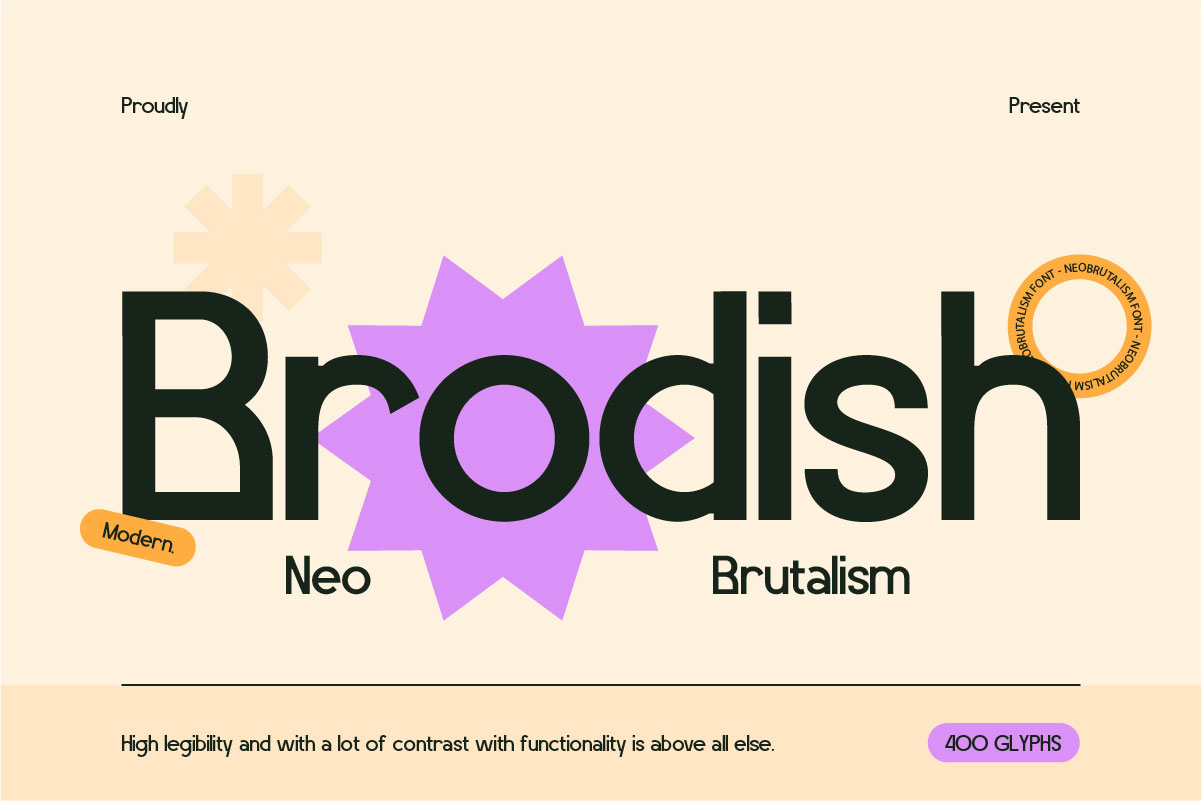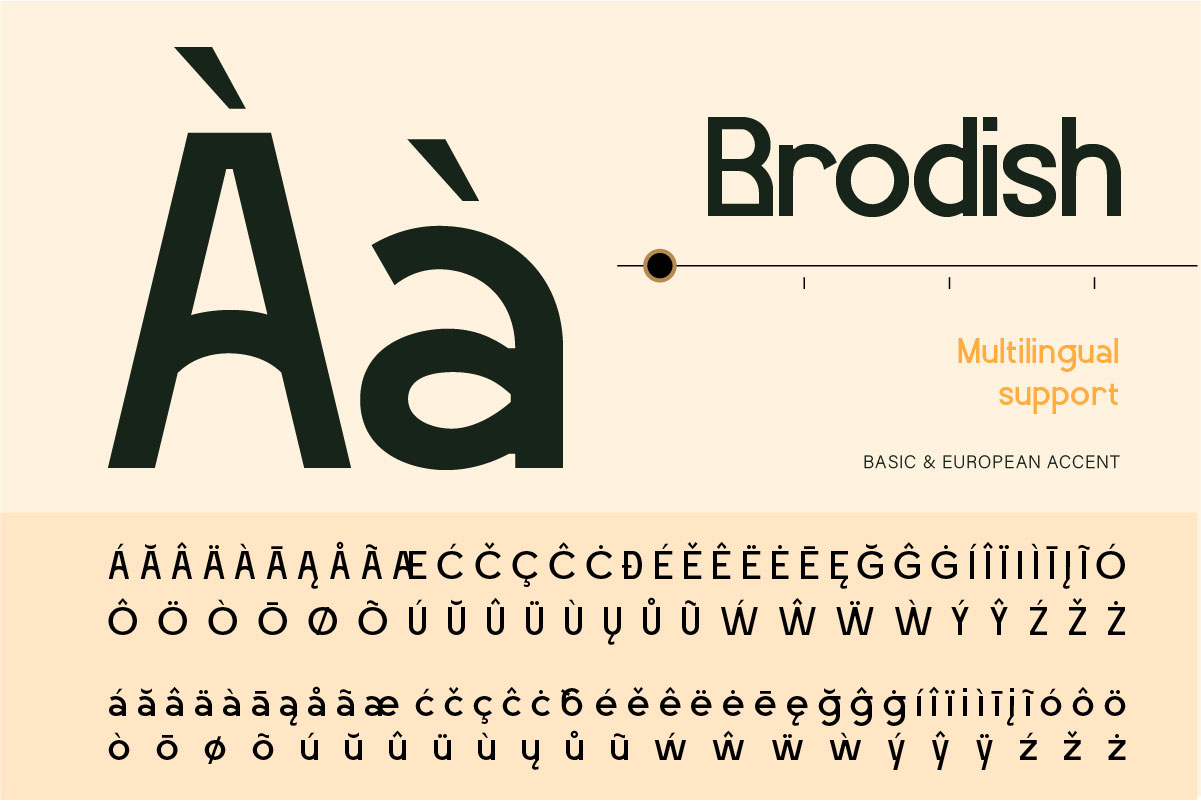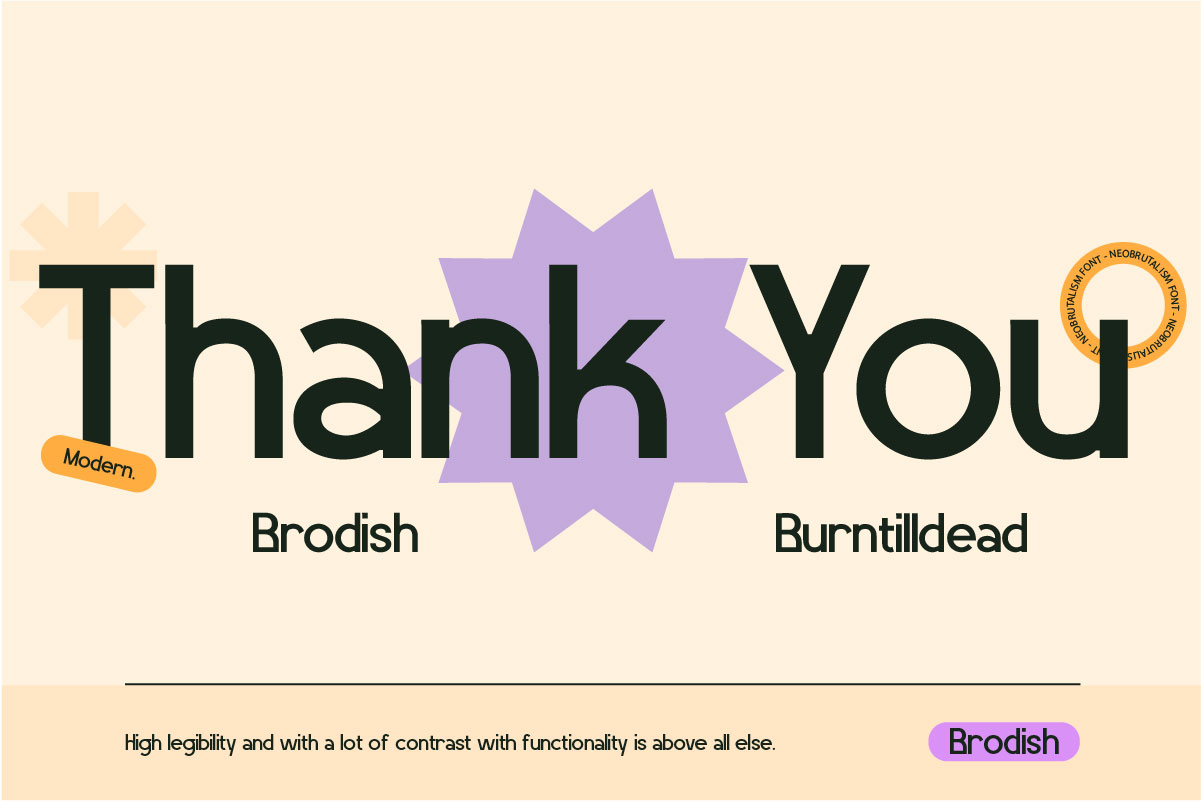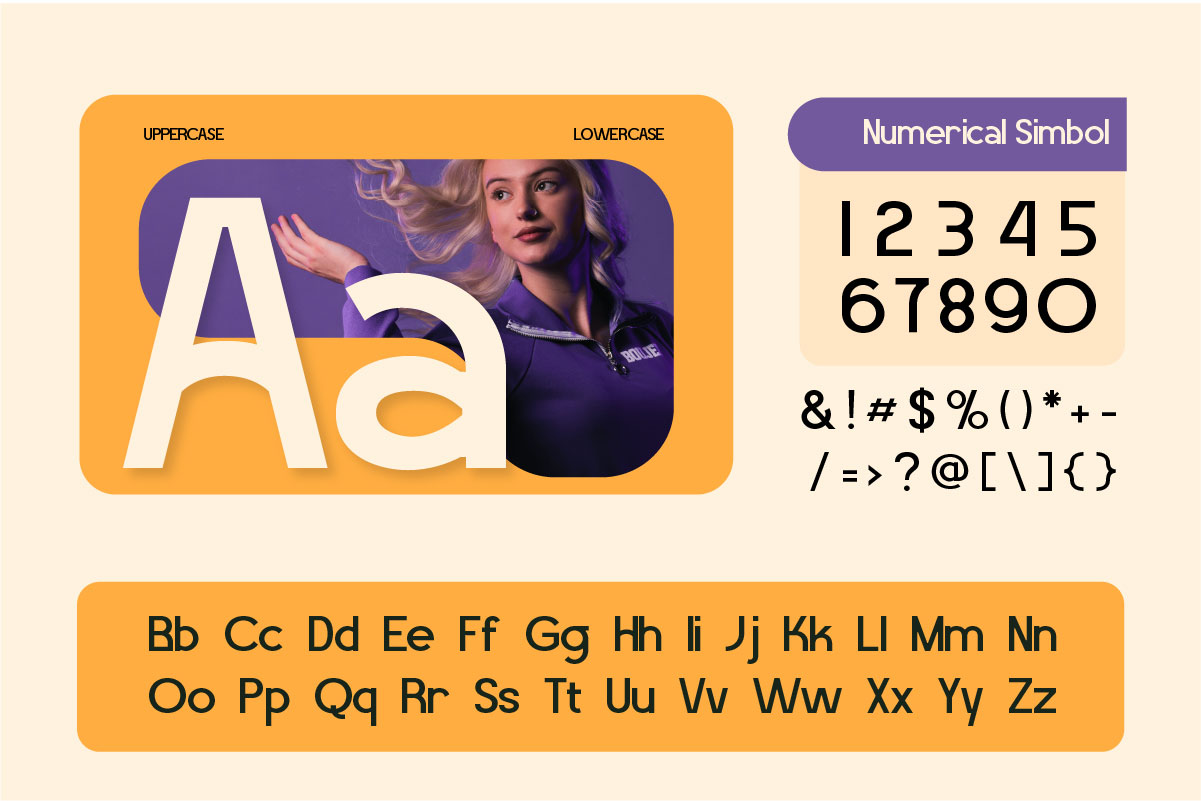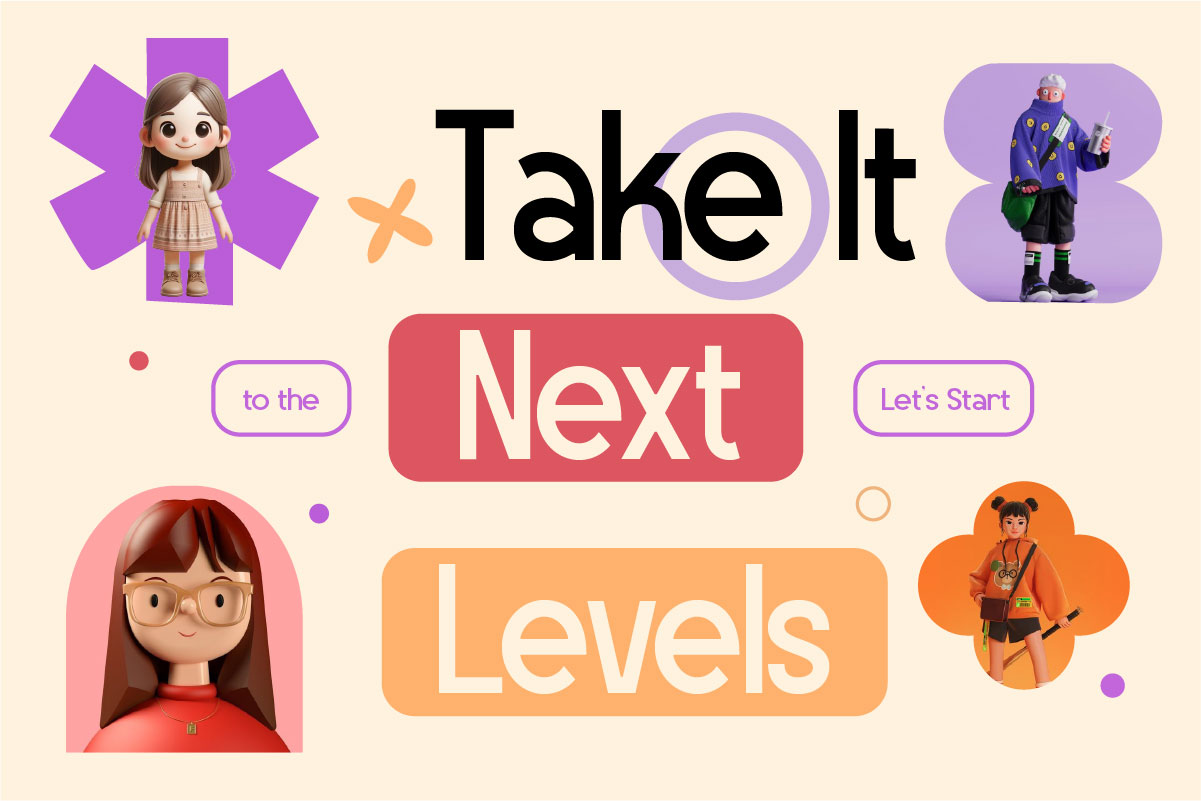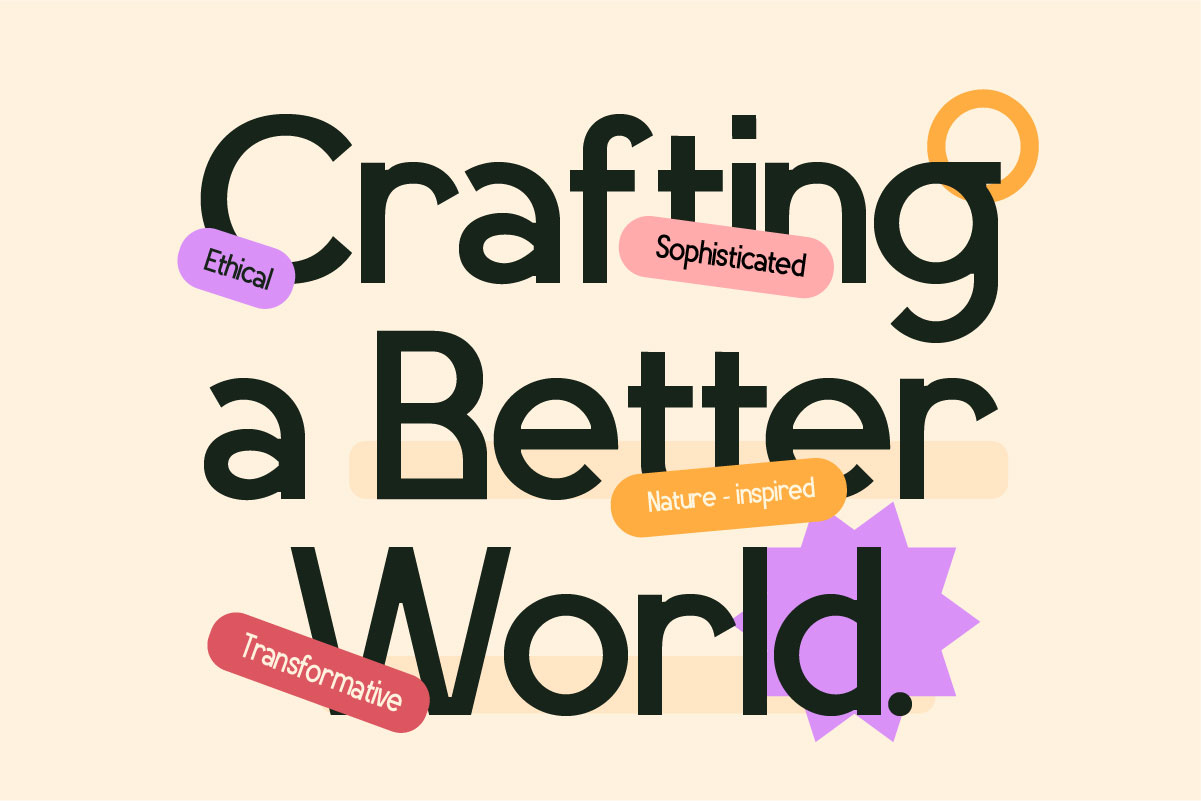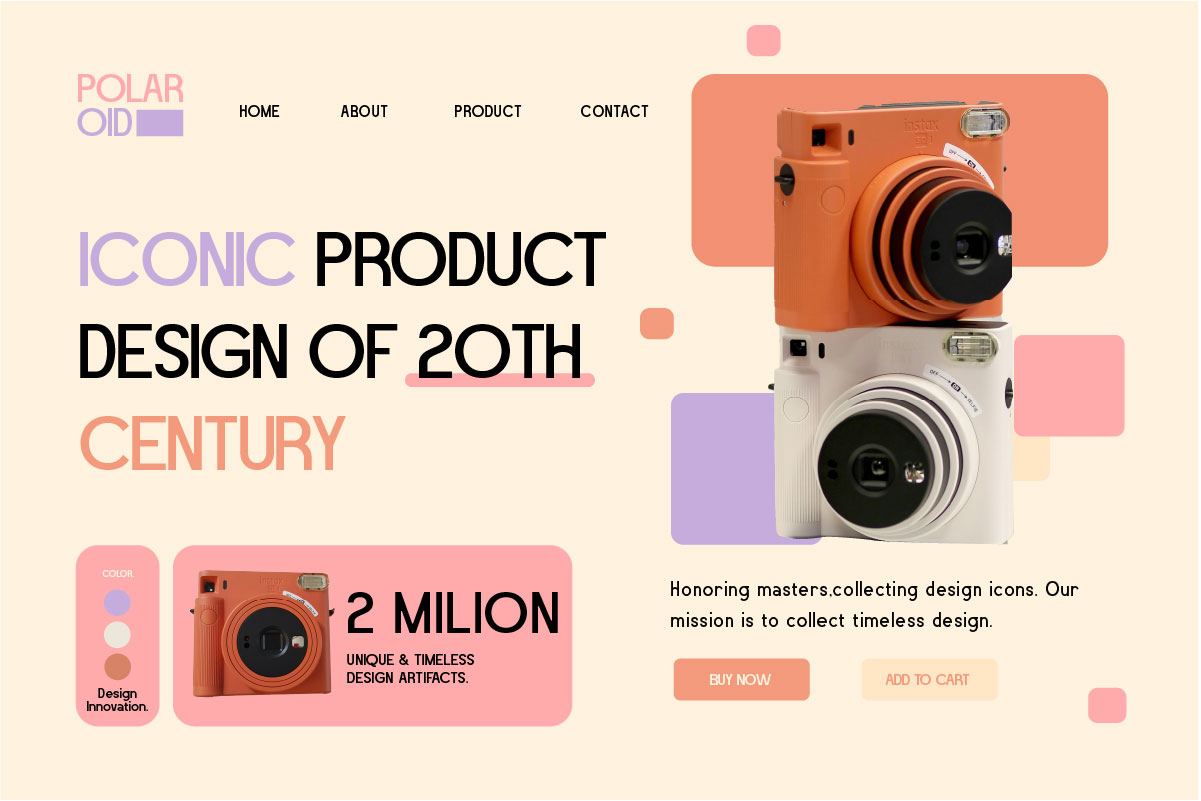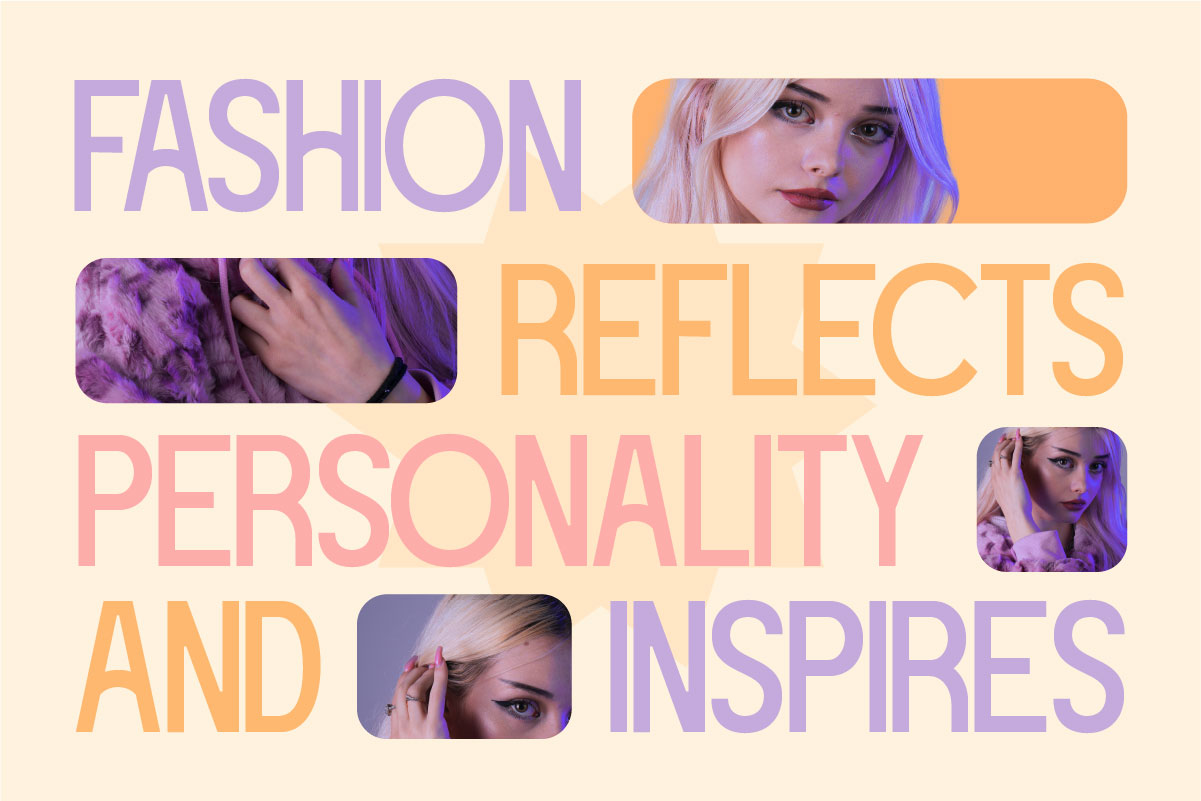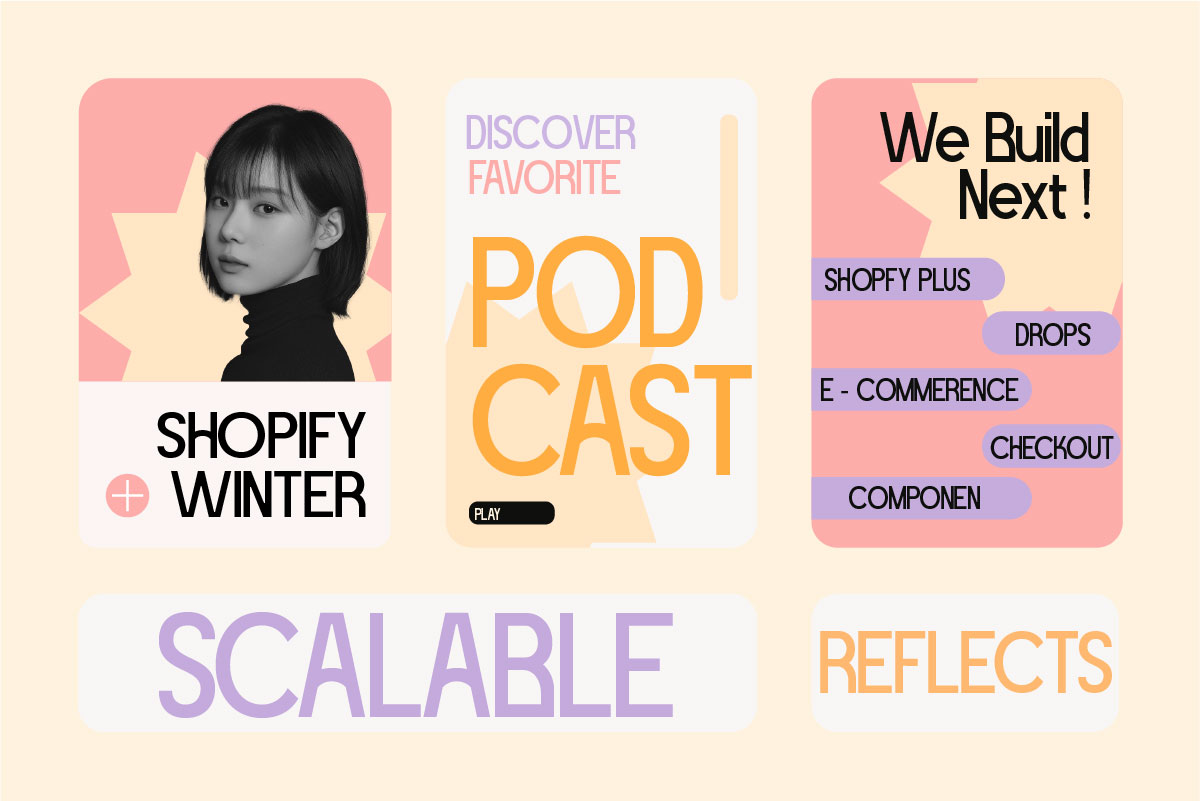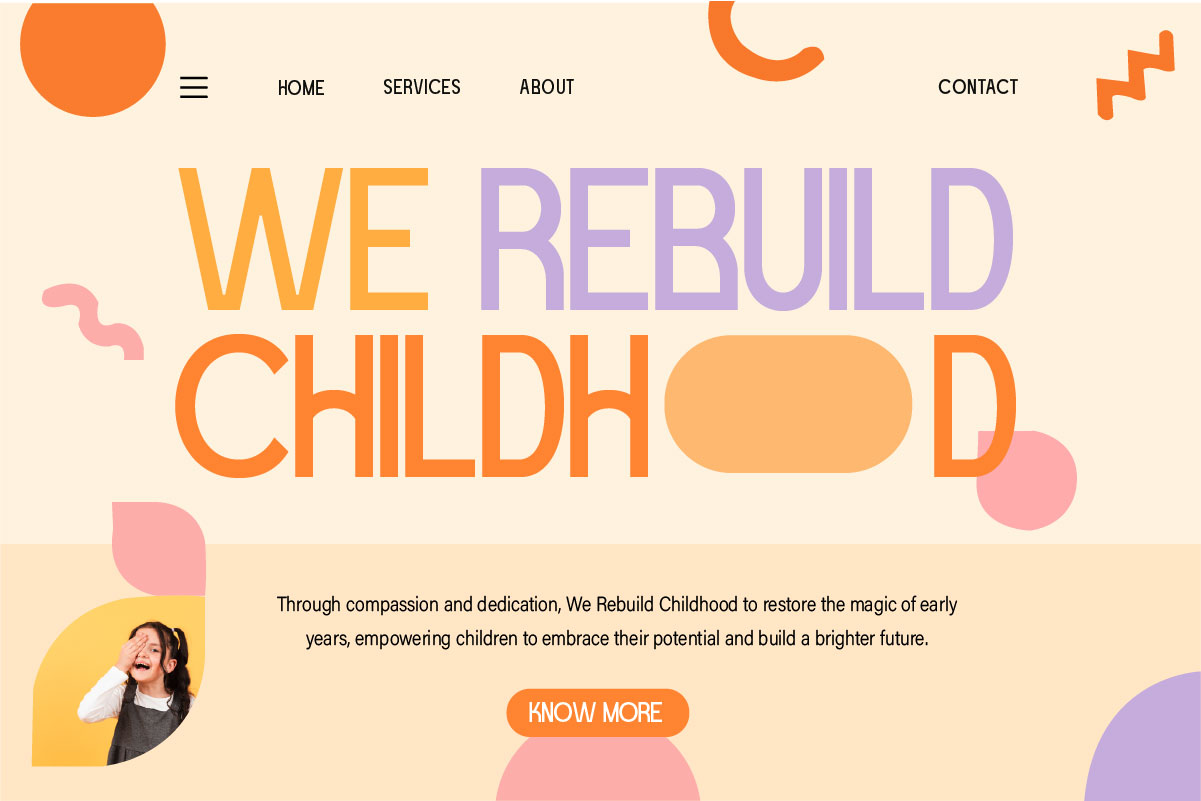
Brodish
Introducing, Brodish, our neo brutalis font. Its bold, geometric shapes and industrial feel make it perfect for edgy design. This font is designed to be both easy to read and visually striking, thanks to its simple, minimalist style and unique characteristics include the multilingual. Also this font Perfect for creating eye-catching headlines and titles. Ideal for headlines, posters, magazine and branding project.